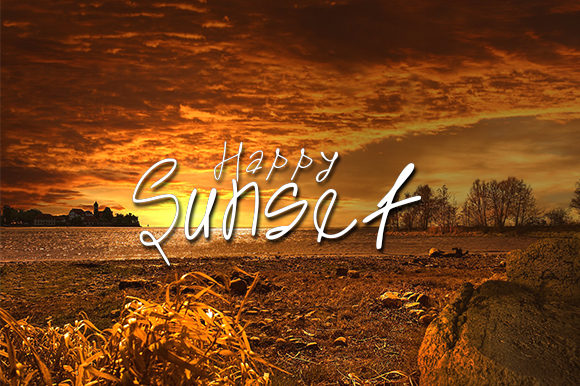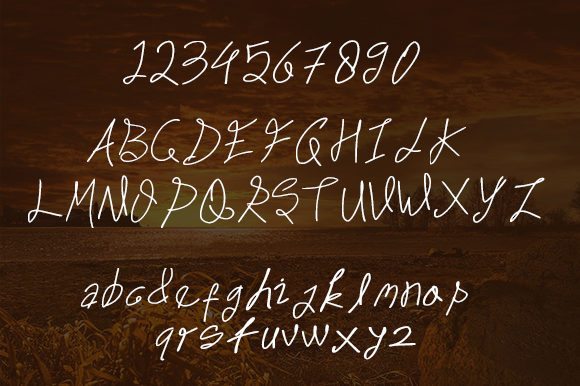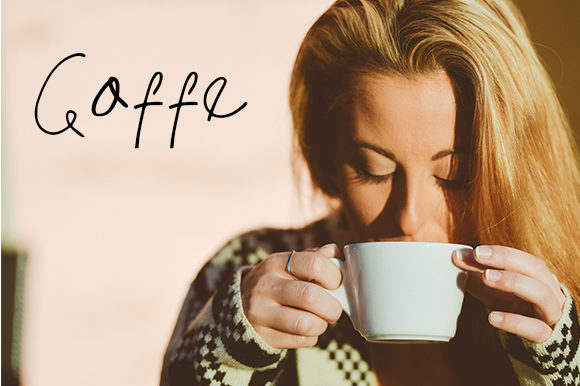
Bungkret Font
About Bungkret Font
Bungkret is an amazing handwritten font with a beautiful feel. It will elevate any design idea with its unique charm.